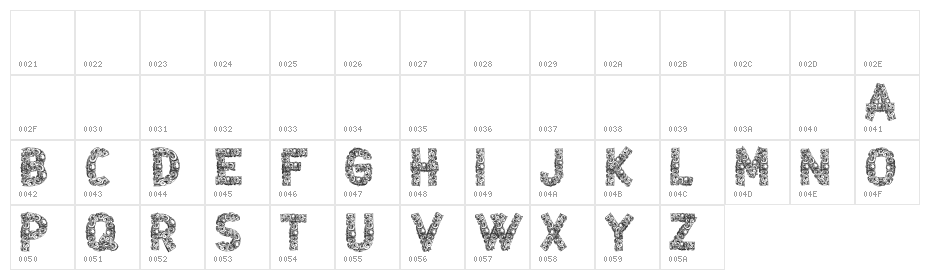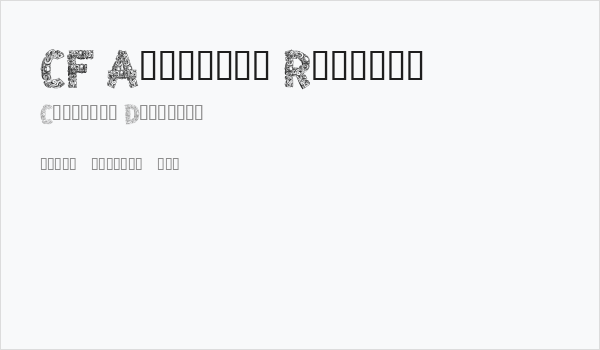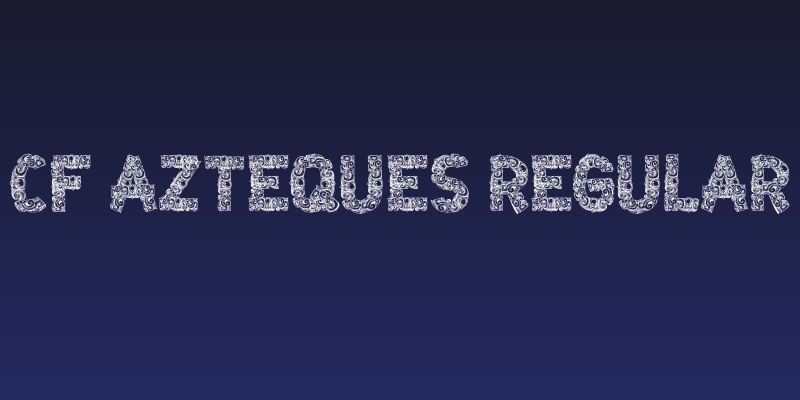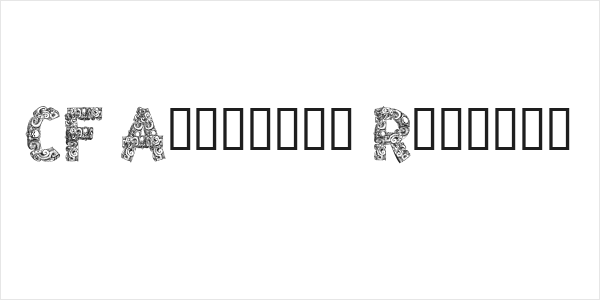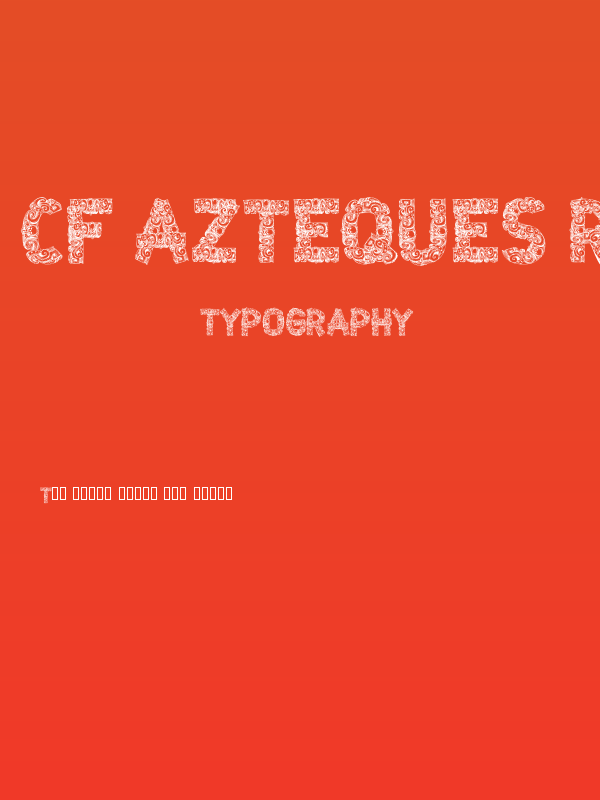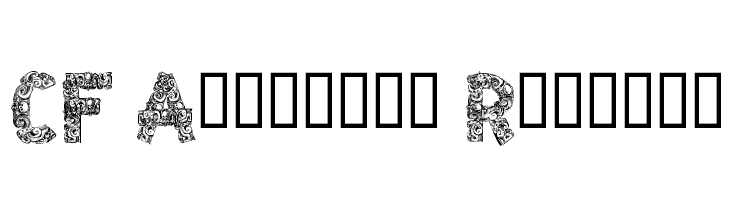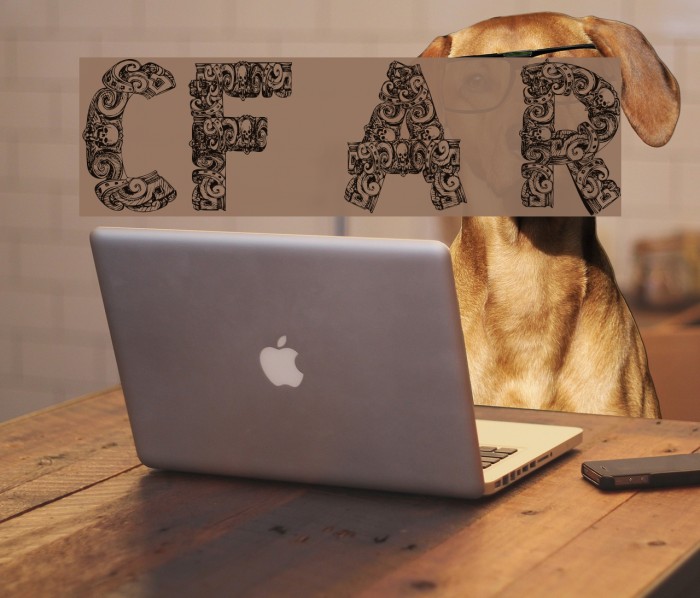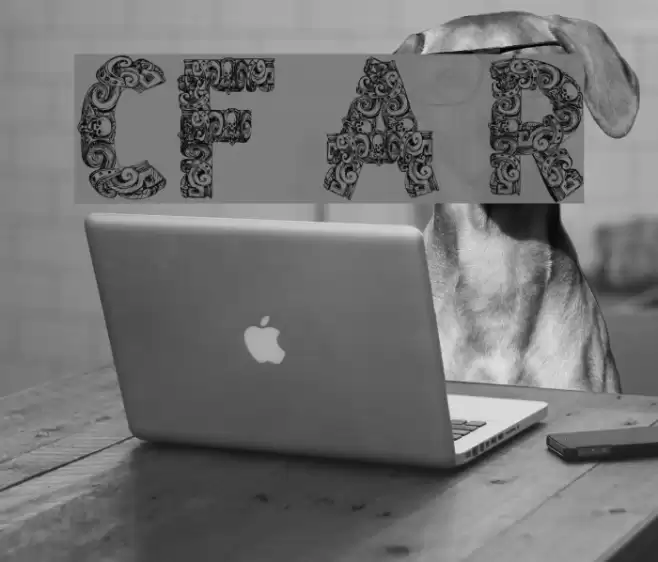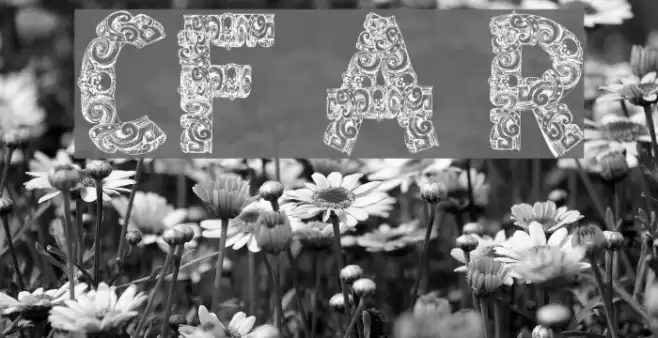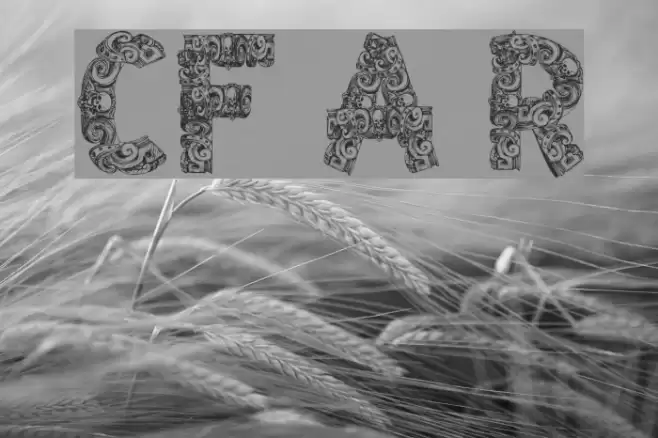
CF Azteques Regular Font
CF Azteques Regular Description
This font features an intricate and decorative design, reminiscent of ancient Aztec art. Each letter is filled with detailed patterns and motifs that evoke a sense of history and cultural richness. The uppercase letters are bold and commanding, making them ideal for attention-grabbing headlines or artistic projects. The font's unique style makes it stand out, offering a blend of historical aesthetics with modern design sensibilities. Its ornamental nature suggests a use in projects that require a touch of elegance and cultural depth.
| Proposed Projects | Ideal for cultural event posters, artistic book covers, themed invitations, and decorative signage. |